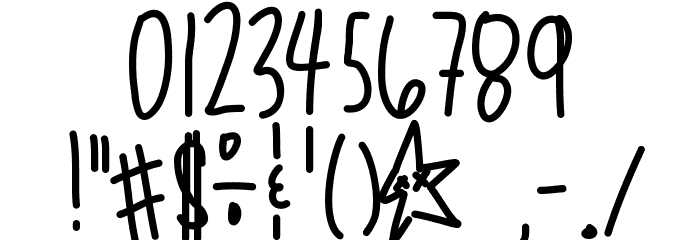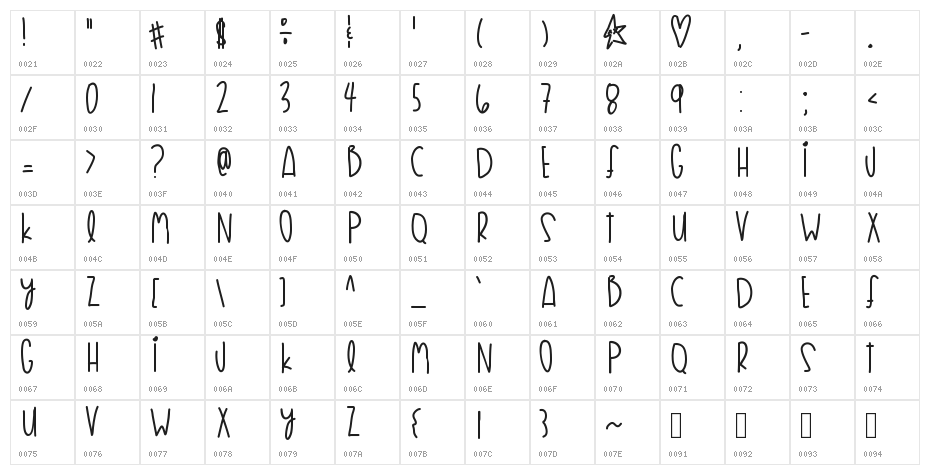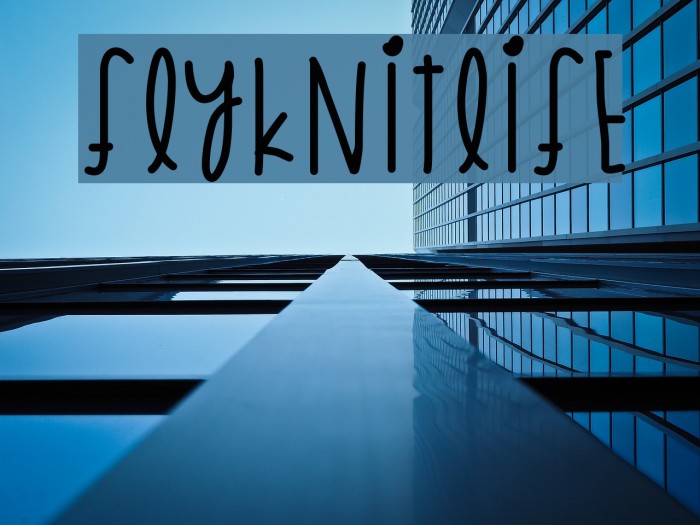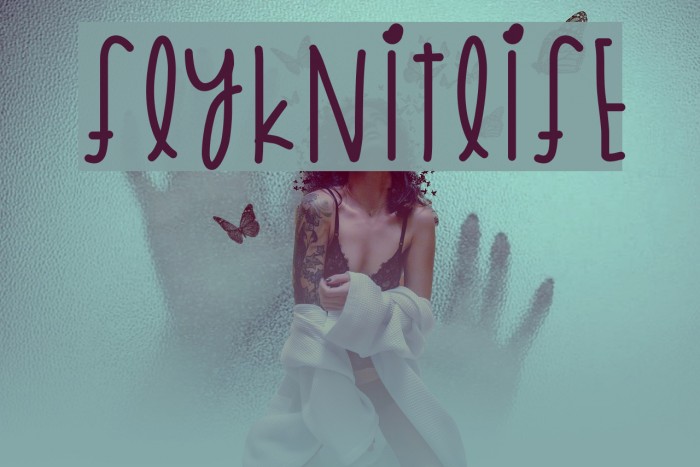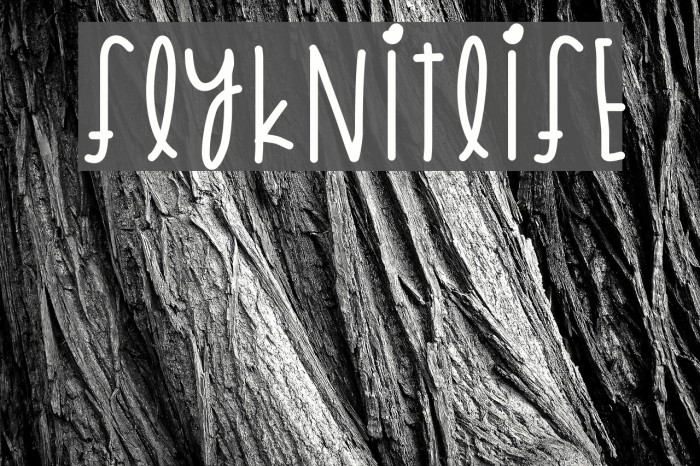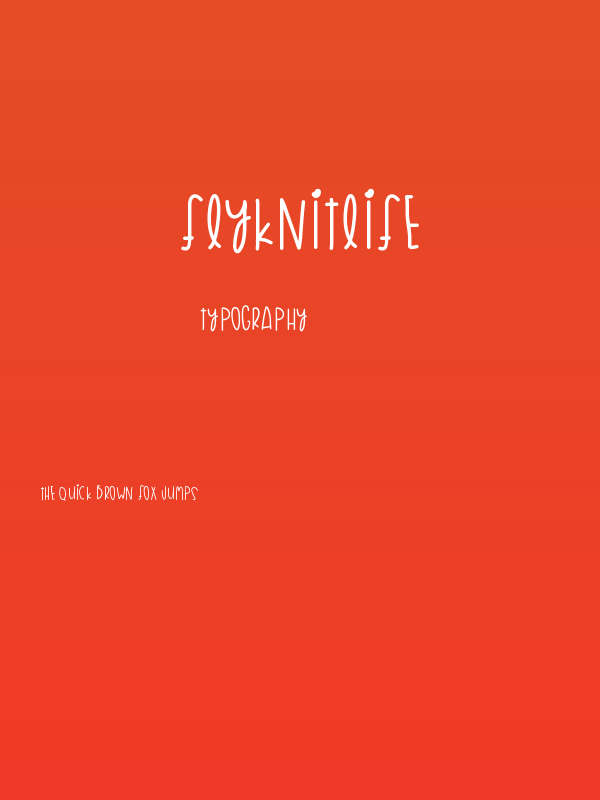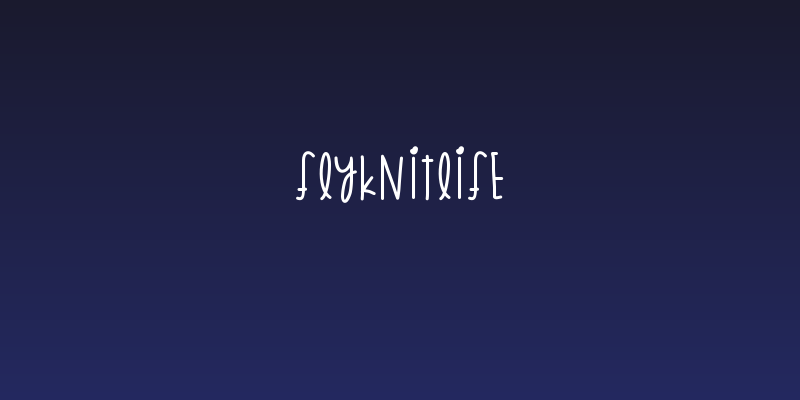
FlyknitLife Font
FlyknitLife Description
This font features a playful and casual handwritten style, characterized by its tall, narrow letters with a slight slant. The strokes are consistent in width, giving it a uniform appearance while maintaining a lively and informal feel. The uppercase and lowercase letters are distinct, with the uppercase being more elongated. Numbers and special characters follow the same whimsical style, making it suitable for creative and informal projects. The font's overall appearance is approachable and friendly, ideal for conveying a sense of fun and creativity.
Overall StyleCasual
Use CaseHeadlines, Informal text, Creative projects
Proposed ProjectsIdeal for greeting cards, children's books, playful branding, and social media graphics.